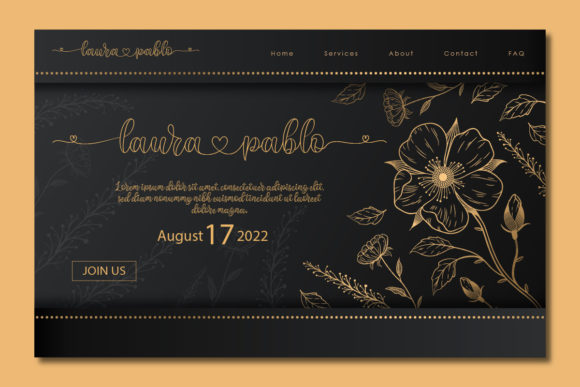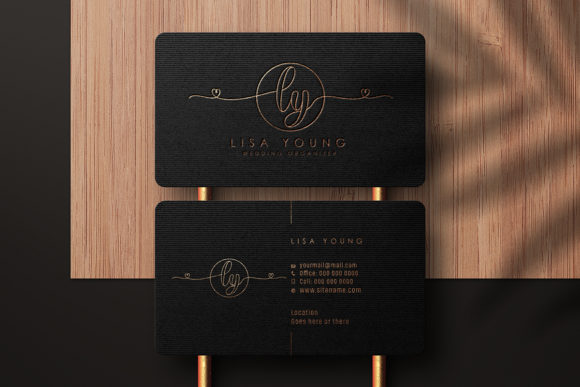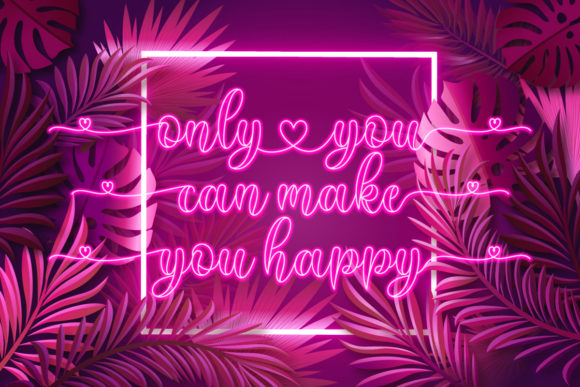
Introduction to Monolove Font
Monolove is an elegant and flowing handwritten font.
It is PUA encoded which means you can access all of the glyphs and swashes with ease It features a varying baseline, smooth lines, gorgeous glyphs and stunning alternates.
Key Features of Monolove Font
Why Choose Monolove Font?
Monolove Font offers exceptional quality and versatility, making it a valuable addition to your design toolkit. Whether you’re creating for personal projects or commercial use, Monolove Font delivers professional results.